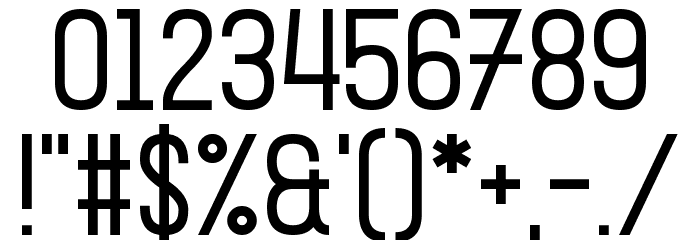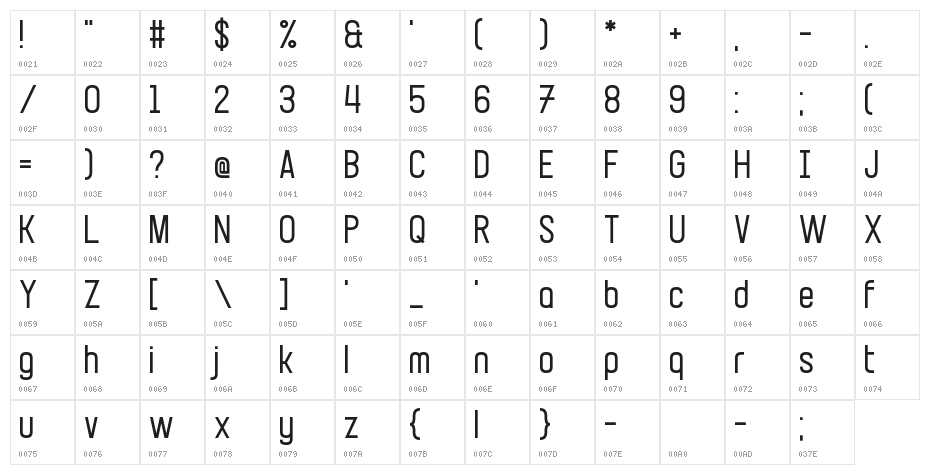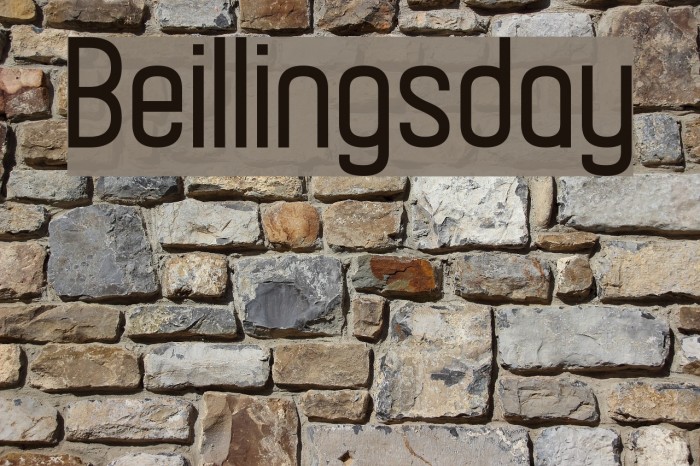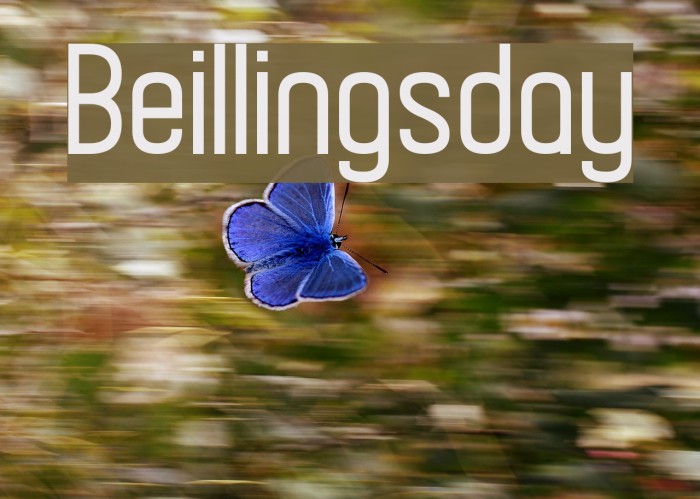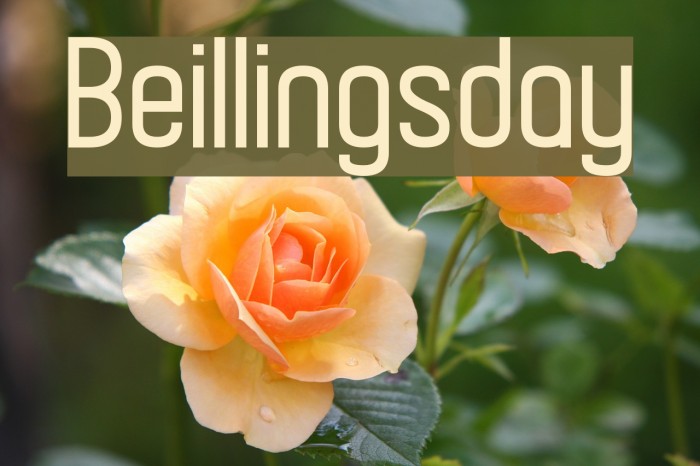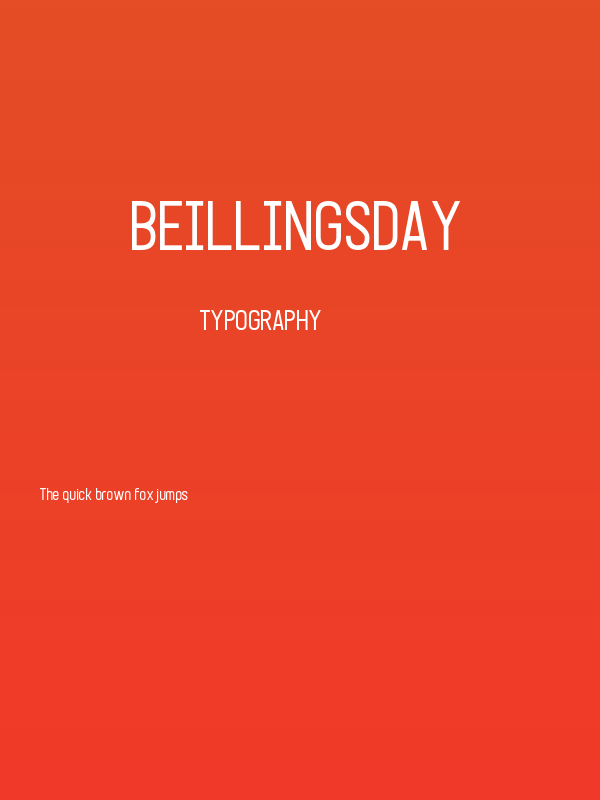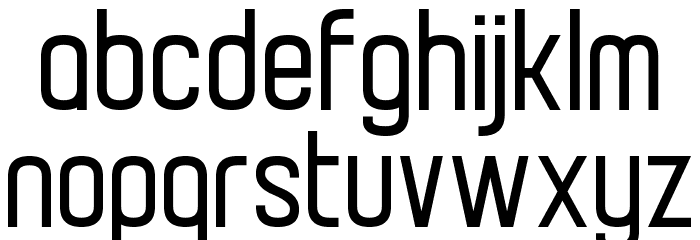
Beillingsday Font
Beillingsday Description
This font features a clean and modern sans-serif design with a geometric structure. The characters are uniformly proportioned, providing a balanced and harmonious appearance. The uppercase and lowercase letters maintain a consistent stroke width, contributing to a sleek and professional look. The numerals are clear and easily distinguishable, making them suitable for various applications. Special characters are well-integrated, ensuring versatility in design projects. The overall aesthetic is minimalistic yet impactful, ideal for contemporary branding and communication.